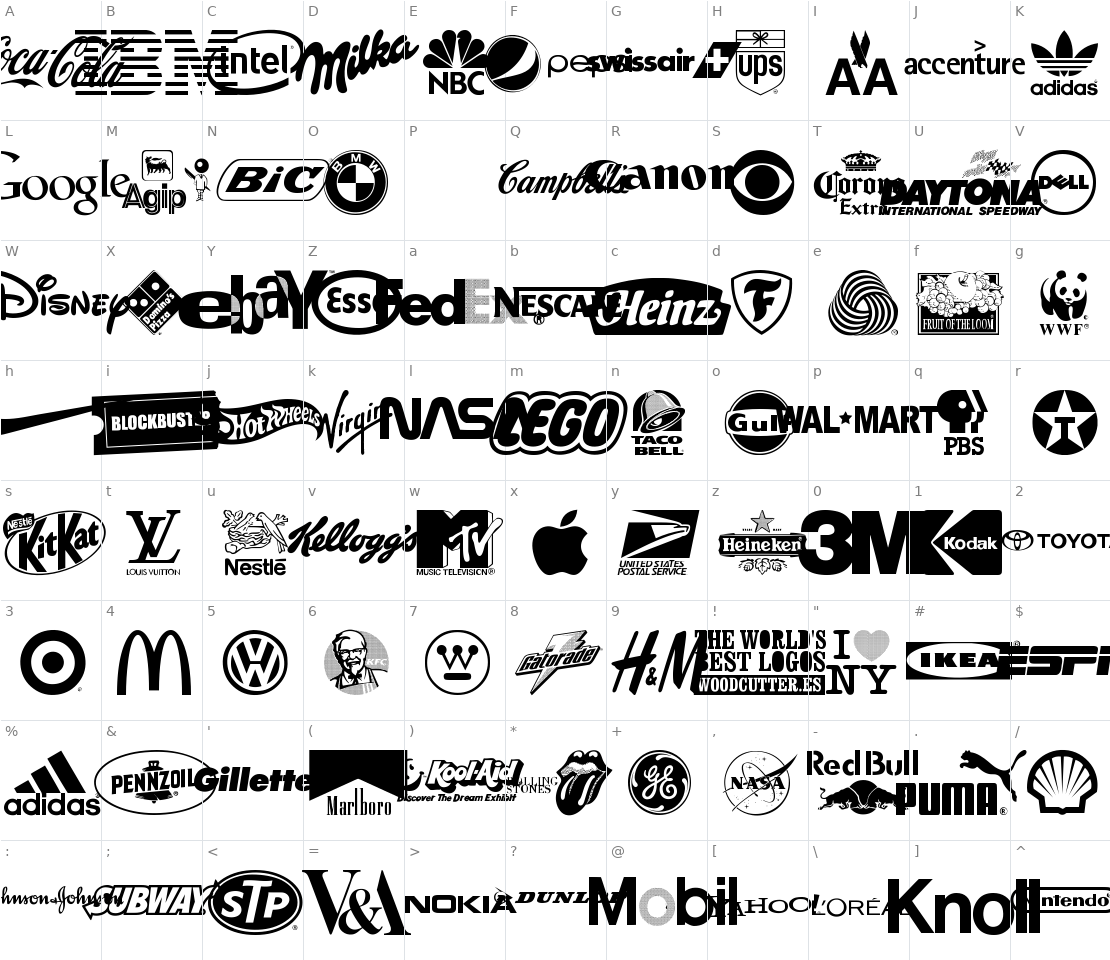
The world's best logos
The world's best logos is a dingbats font from Woodcutter that collects recognizable corporate logo symbols and brand icons into a single character set. Rather than traditional letterforms, each glyph represents a well-known commercial brand mark, making it more of a reference sheet or design resource than a typeface in the usual sense. Useful for mockups, presentations, or quick visual shorthand where you need brand iconography without hunting down individual vector files.